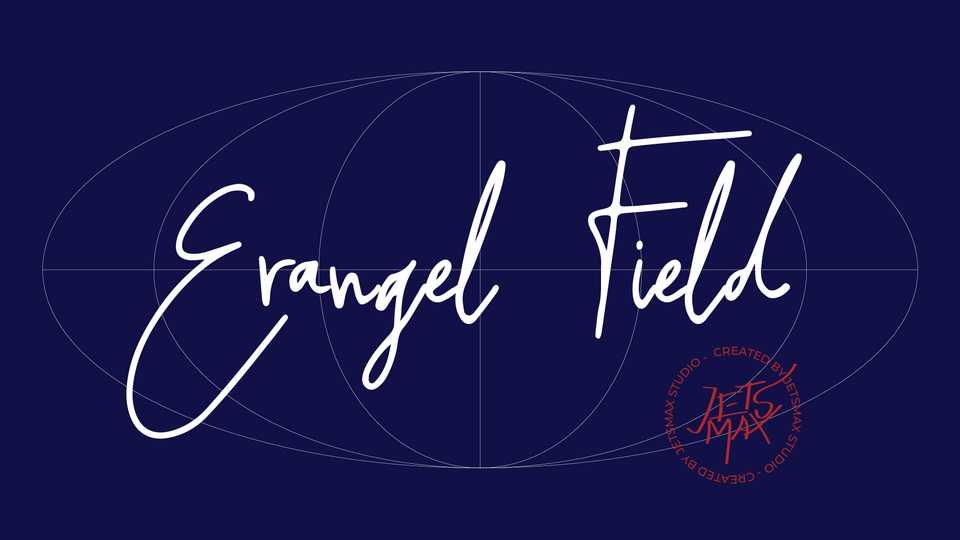
Download Erangel Field font, a realistic handwritten typeface that will give your design projects the natural handwritten style and hand-crafted aesthetic touch.
Designer: Jetsmax Studio